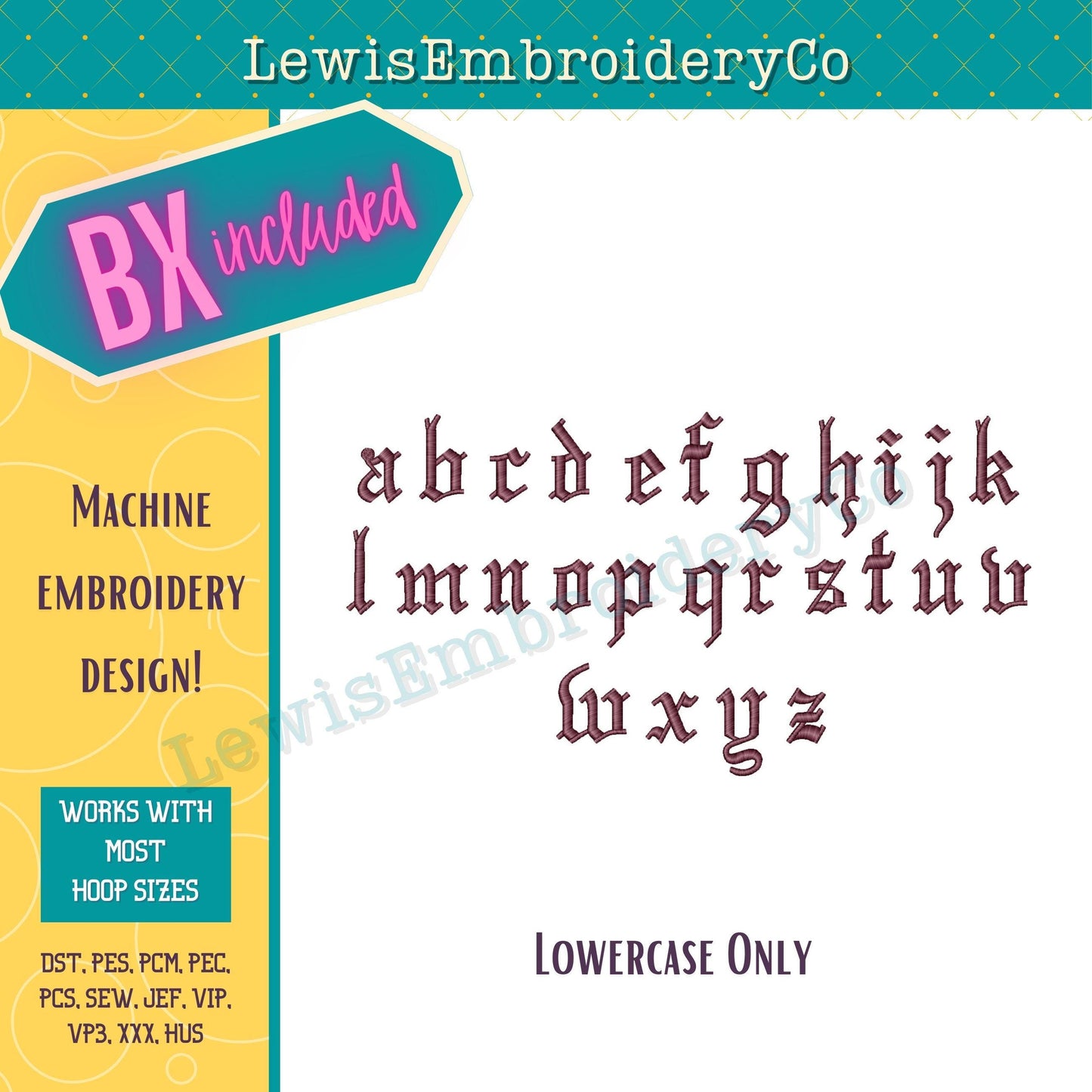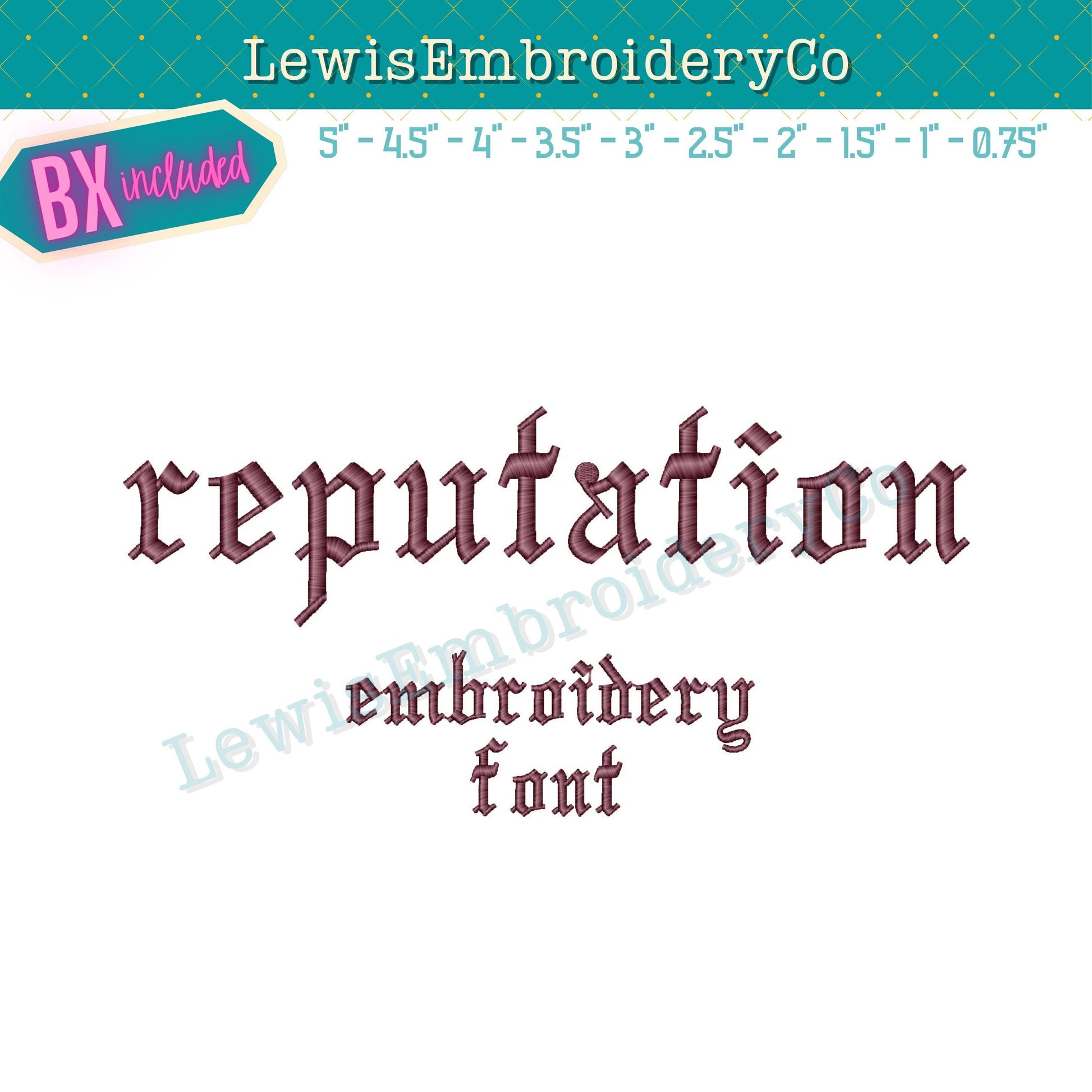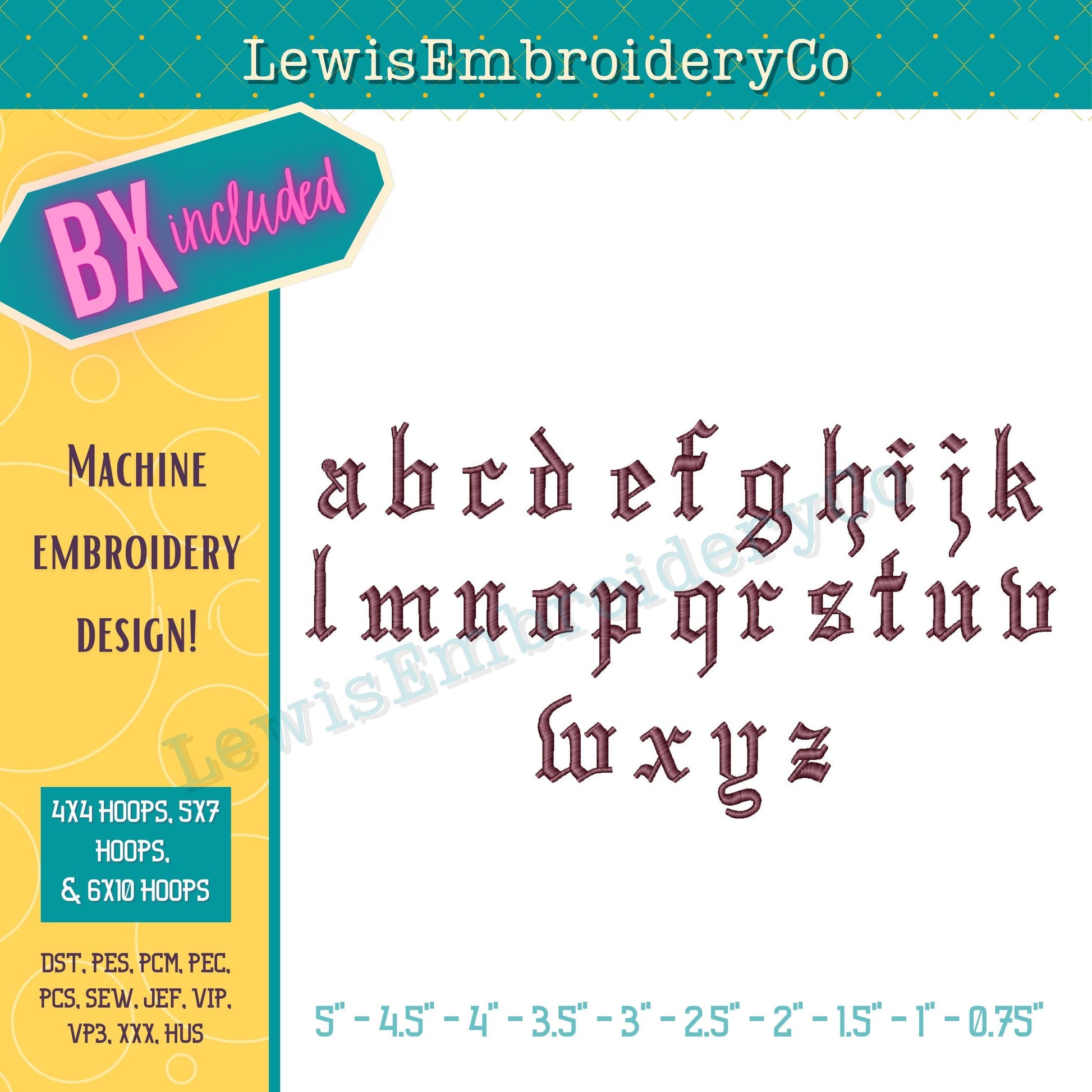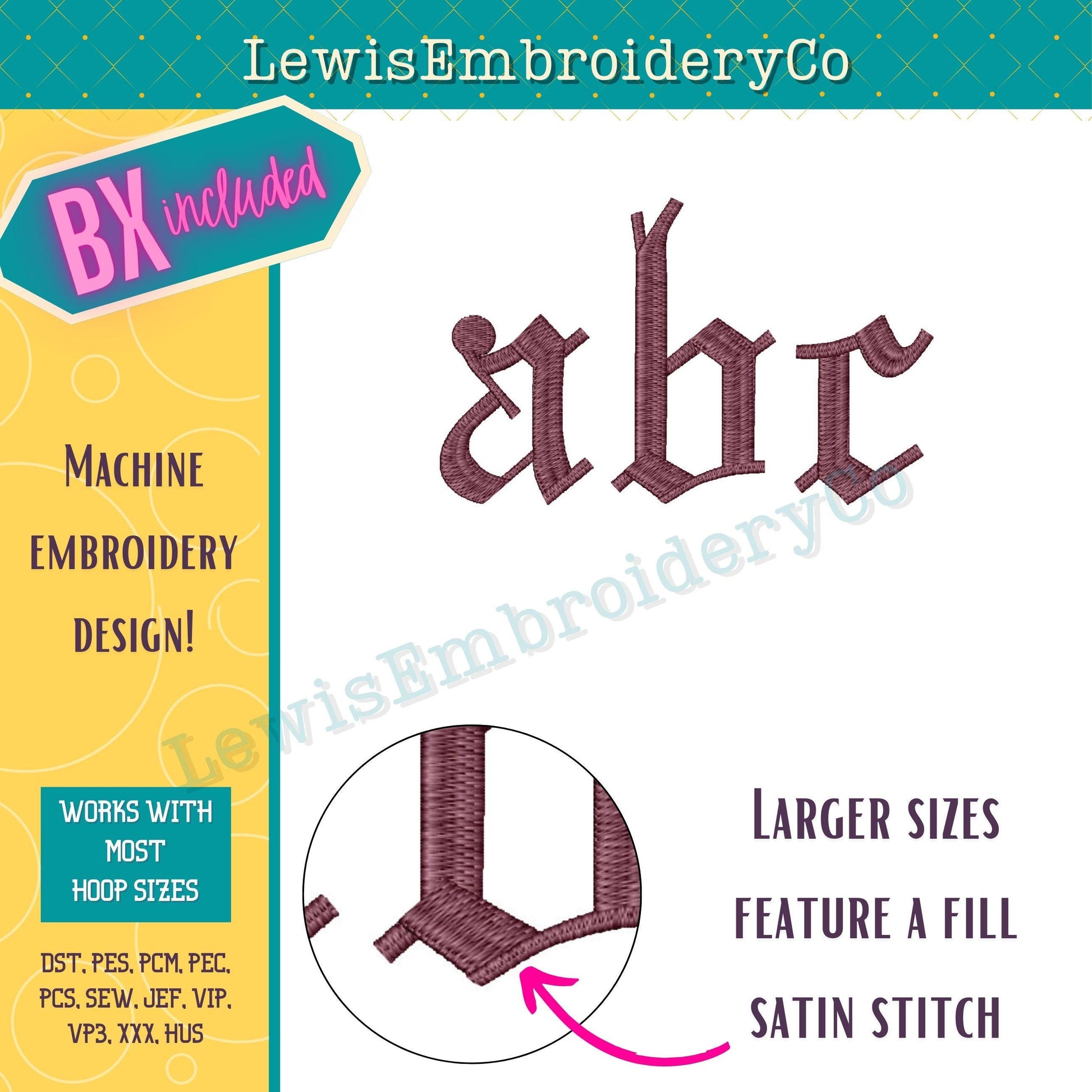
reputation Embroidery Font - Fancy Embroidery Font - BX Font - Old English - Taylor Font, Eras Tour, Swifty - Old, Rustic, Renaissance
***Updated to include uppercase B and D***